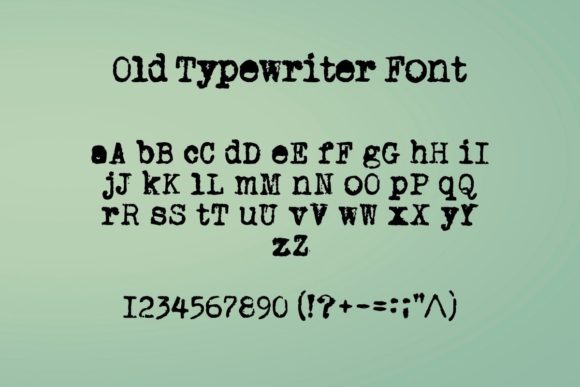
Old Typewriter is a display font that was created with an authentic, vintage feel. This font will be an incredible asset to your fonts’ library, as it has the potential to add a unique feel to all your creations.
Old Typewriter Font